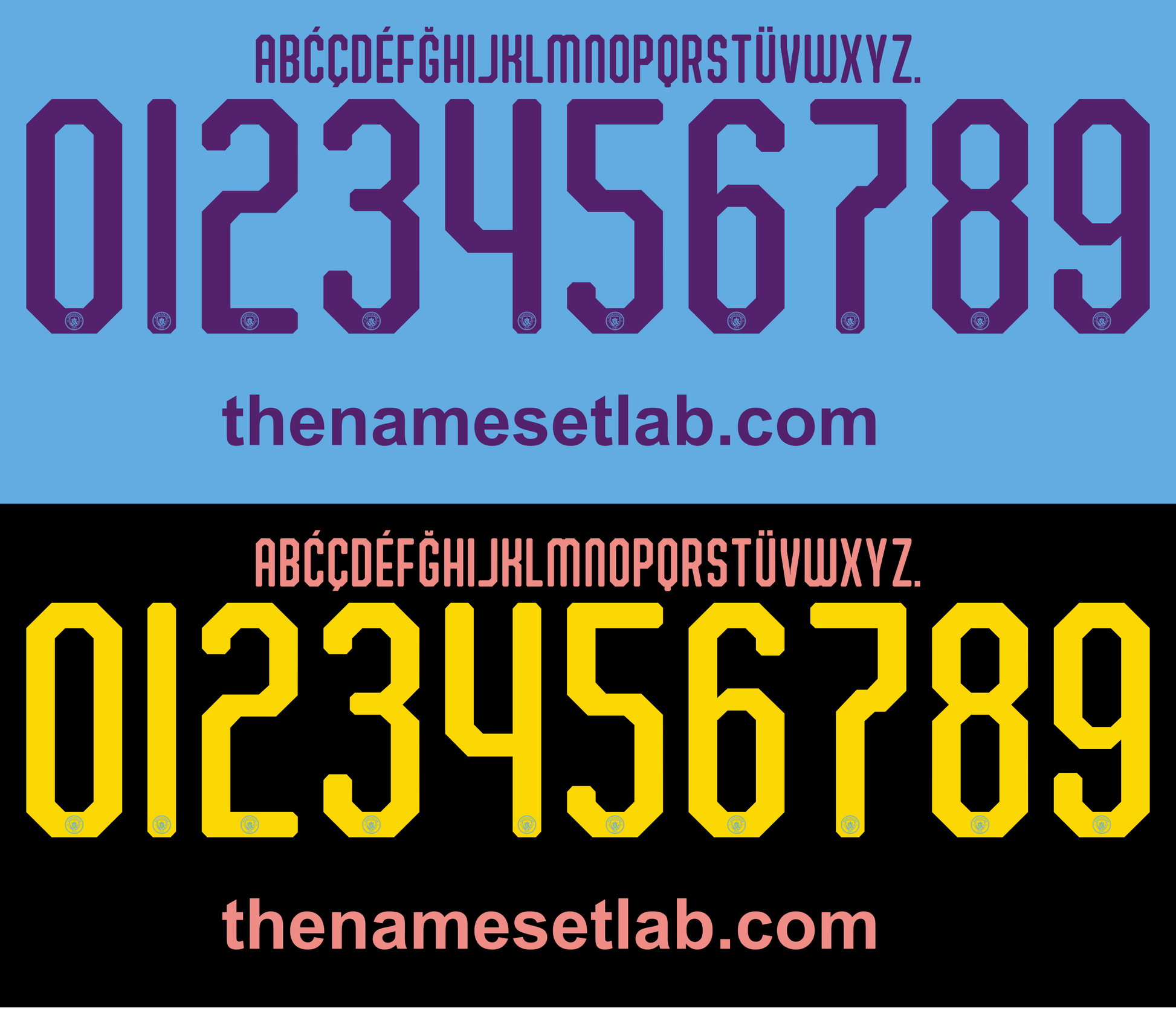
Manchester City-19-20 UCL / Cup Font Nameset AI Vector File
Download this Manchester City 2019-2020 UCL / Cup nameset as an editable .ai vector file. Styled in the 19/20 font, it’s perfect for recreating shirts from the season City lifted the League Cup and competed strongly in Europe under Pep Guardiola. Great for custom kit prints or football memorabilia projects.